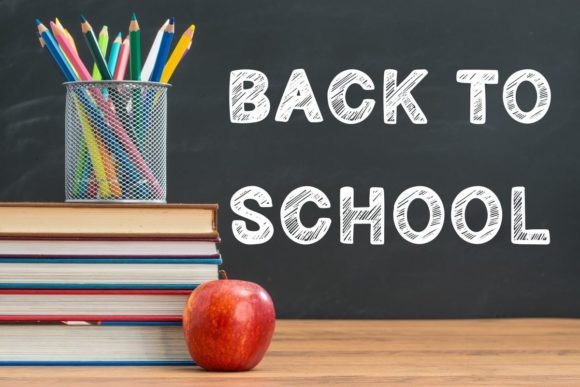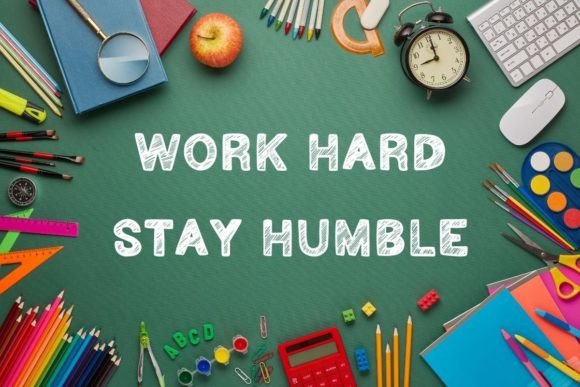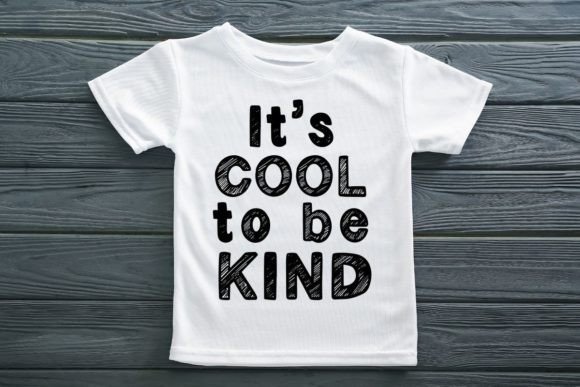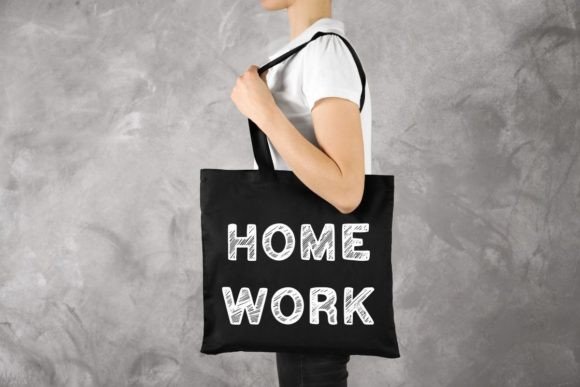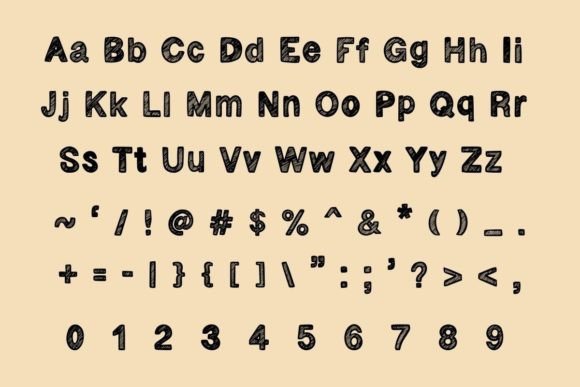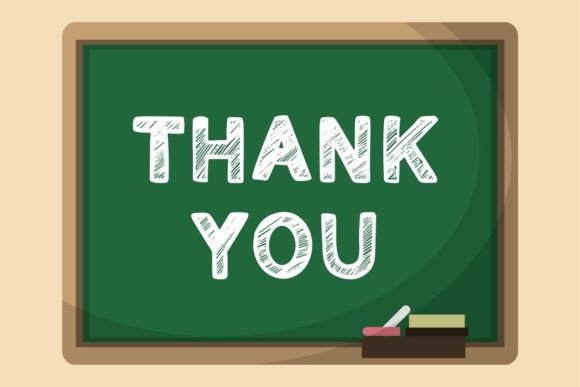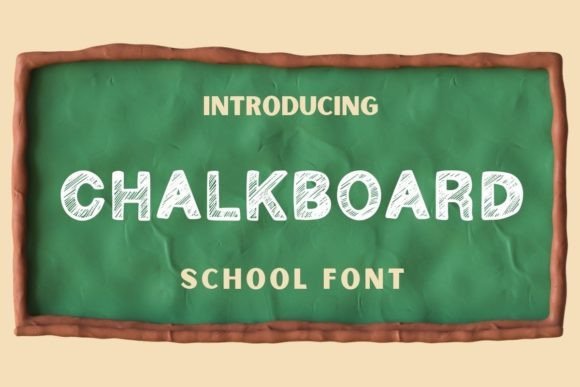
The Joy of Chalkboard Font: Bringing Whimsy to Your Designs
Have you ever found yourself doodling in the margins of a notebook, scribbling down quotes or reminders in a playful, cursive script? For many creatives, those carefree moments are the spark that ignites a new project or inspires a fresh idea.
That same sense of whimsy can be captured with the Chalkboard Font, a charming display font designed to evoke the feel of old-fashioned chalkboards. Perfect for greeting cards, headlines, stickers, and more, this font is a versatile tool for designers looking to add a touch of personality to their work. Whether you’re creating educational materials, party invitations, or simply want to add a playful twist to your branding, the Chalkboard Font is a valuable asset to have in your design arsenal.
Chalkboard Font Key Features
- Unique, hand-drawn style reminiscent of traditional chalkboard writing
- Supports a wide range of languages, including Latin, Greek, and Cyrillic scripts
- Can be used for both body text and titles, adding a touch of nostalgia and whimsy to designs
Chalkboard Font Review
Overall, I think the Chalkboard Font is a great choice for those looking for a distressed, hand-drawn feel. ✨ The font is highly customizable, and it’s available in a variety of styles and weights, making it perfect for both digital and print projects.
One of the things I love about Chalkboard Font is its versatility. ✨ You can use it for everything from wedding invitations to children’s book covers, and it will always add a touch of whimsy and charm. The font is also highly legible, even at smaller sizes, which makes it perfect for headings and titles.
However, there are a few limitations to the Chalkboard Font that you should be aware of. ⚠️ Firstly, the font can be a bit too ornate for some projects, and it may not be suitable for formal or professional designs. Additionally, the font can be a bit difficult to read in certain contexts, particularly at smaller sizes or in low-contrast environments.
Overall, I would recommend the Chalkboard Font to designers who are looking for a unique and playful font that can add some personality to their designs. With its high level of customization and versatility, it’s a great choice for a wide range of projects.
- Available in a variety of styles and weights
- Perfect for digital and print projects
- Highly legible, even at smaller sizes
- Can be a bit too ornate for formal designs
- Can be difficult to read in certain contexts
Chalkboard Font Practical Application Guide
The Chalkboard Font is commonly used in educational, food, and rustic-themed designs. It’s ideal for creating a sense of nostalgia and informality. You can use it to create signs, labels, and other text elements that require a casual, handwritten feel.
Alternatives to Chalkboard Font
Great Vibes is a beautiful script font perfect for creating a relaxed and casual atmosphere. It’s ideal for wedding invitations, event branding, and any design that requires a touch of elegance and sophistication. Compared to Chalkboard Font, Great Vibes is more refined and polished, making it suitable for high-end designs.
Alex Brush is a handwritten font that exudes warmth and personality. It’s great for designs that require a human touch, such as restaurant menus, coffee shop branding, and personal projects. Unlike Chalkboard Font, Alex Brush has a more organic feel, making it perfect for designs that need a sense of authenticity.